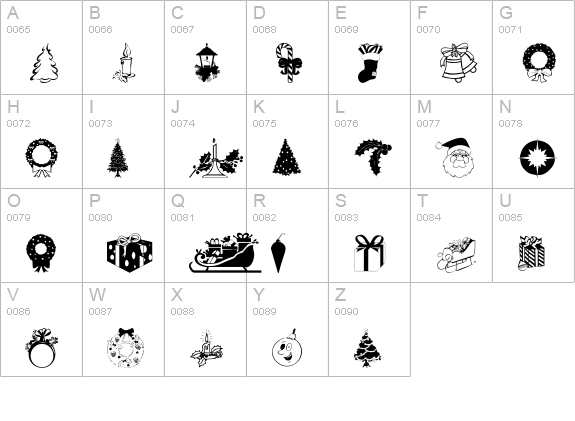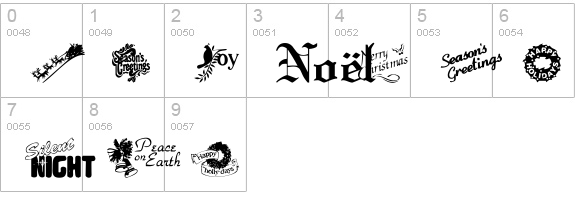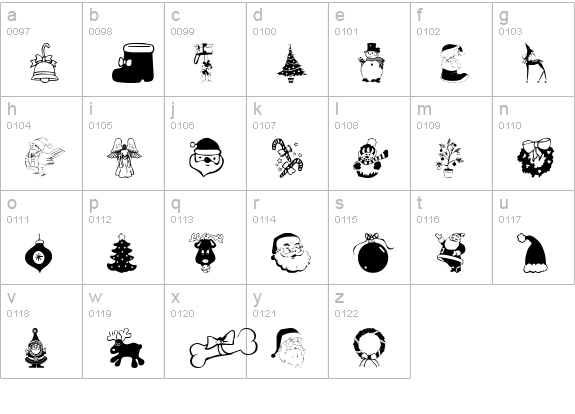
XmasTyme 1 Font Details
Introducing XmasTyme 1 font, a whimsical and festive typeface perfect for adding a touch of holiday cheer to your designs. This playful font features unique Christmas-themed elements that will bring joy to any project. From greeting cards to party invitations, XmasTyme 1 font will surely make your text stand out during the holiday season. What's even better is that XmasTyme 1 font is completely free to download at FontsMarket.com. That's right, you can easily add this delightful font to your collection without any cost. So why wait? Spread the holiday spirit with XmasTyme 1 font today!